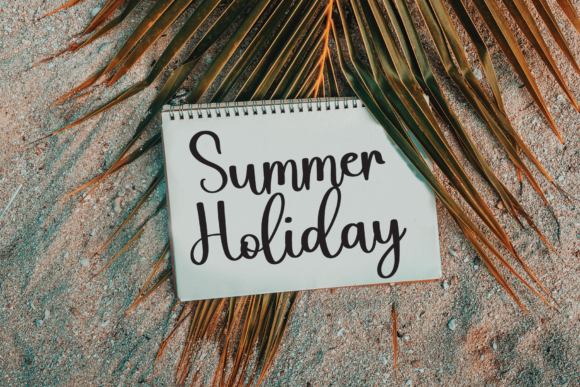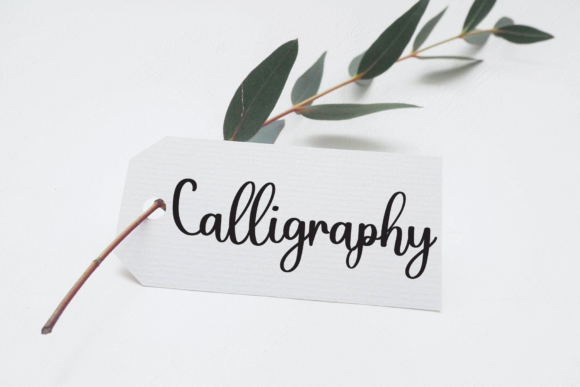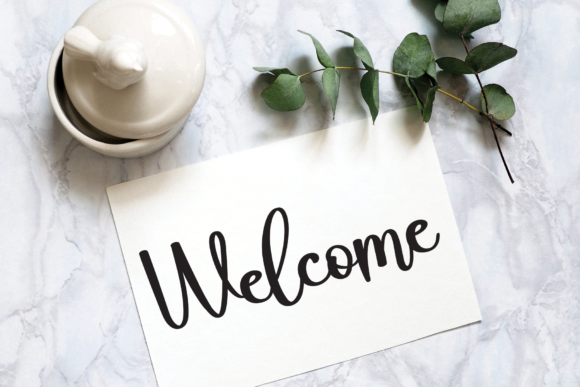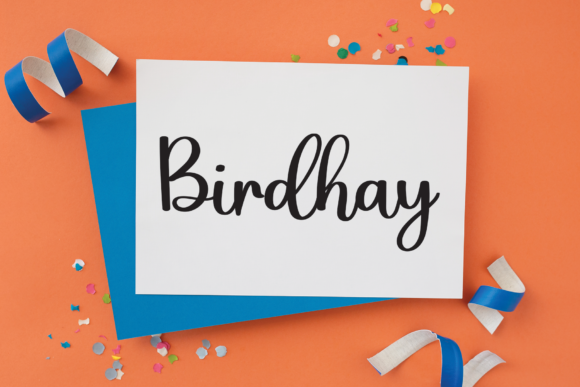
The Sweet Charm of Alone Font: A Designer’s Delight
I’ll never forget the time I was working on a luxury branding project for a high-end jewelry client. I had spent hours perfecting the logo design, but something was missing. The font I had chosen just wasn’t giving off the right vibe. It was then that I stumbled upon the Alone Font, and it completely transformed my design. The sweet, whimsical, fluid, and thin script font features characters dancing along a baseline, adding a splash of luxury to my project. In this article, I’ll share my love for the Alone Font, its features, and how to make the most of it in your designs.
An Honest Review of Alone Font
- ✨ The elegant, cursive script style that adds a touch of sophistication to any design
- ✅ The fluid and thin lines that create a sense of movement and luxury
- 💫 The unique character dancing along a baseline, making each word feel like a work of art
- 🎨 The versatility of the font, suitable for a wide range of design projects, from branding to invitations
While I adore the Alone Font, there are a few things to keep in mind:
- 🤔 The font may not be the best choice for body text or long paragraphs, as it can be quite delicate and may not be easily readable.
- ⚠️ Some characters may not be suitable for use in smaller sizes, so it’s essential to test the font at different sizes to ensure it works well for your project.
The Story Behind Alone Font
The Alone Font was designed with the intention of capturing the essence of luxury and elegance. Its creator wanted to craft a font that would evoke a sense of movement and fluidity, while also being delicate and refined. The result is a font that is both sophisticated and charming, perfect for designers looking to add a touch of whimsy to their projects.
Q: What is the Alone Font best suited for?
A: The Alone Font is ideal for designs that require a touch of luxury, elegance, and sophistication, such as branding, invitations, and high-end marketing materials.
Q: Can I use the Alone Font for body text?
A: While possible, the Alone Font may not be the best choice for body text or long paragraphs, as it can be quite delicate and may not be easily readable.
Q: Is the Alone Font suitable for digital use?
A: Yes, the Alone Font is suitable for digital use, including social media graphics, website headers, and email marketing materials.